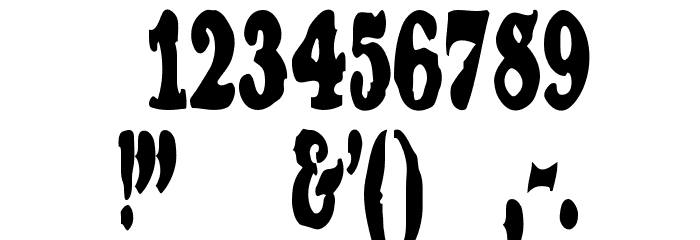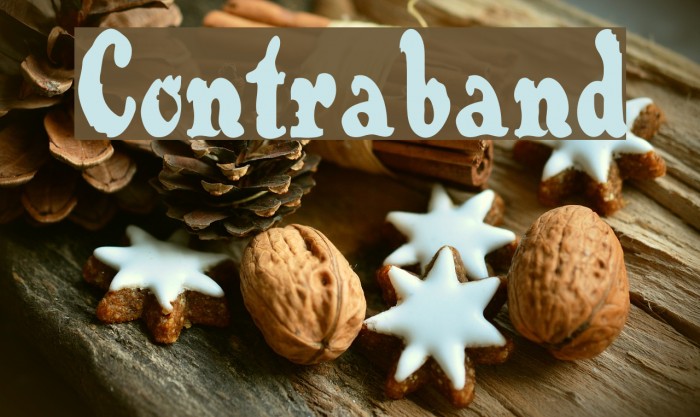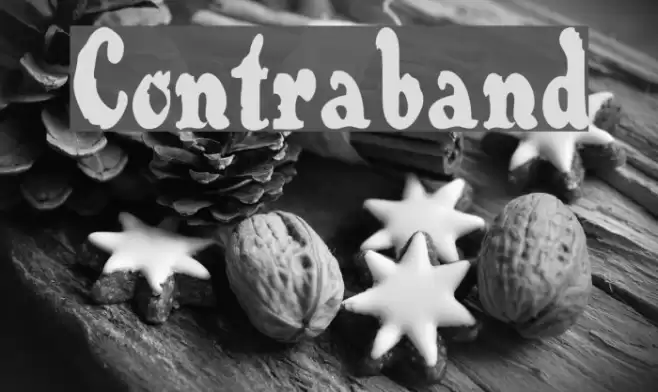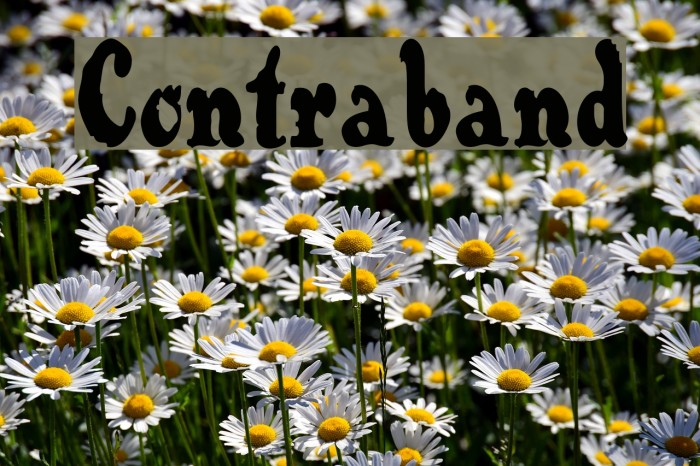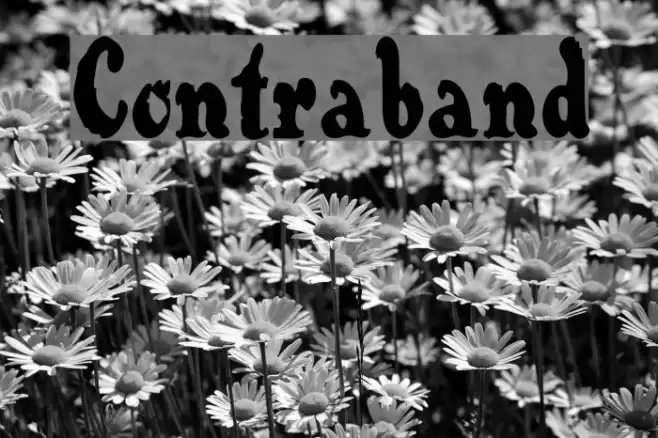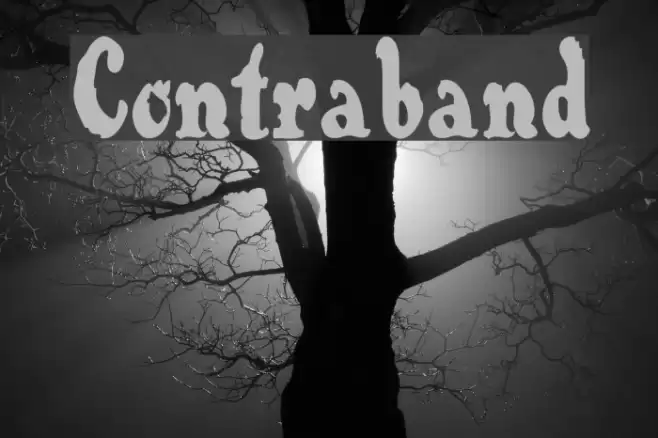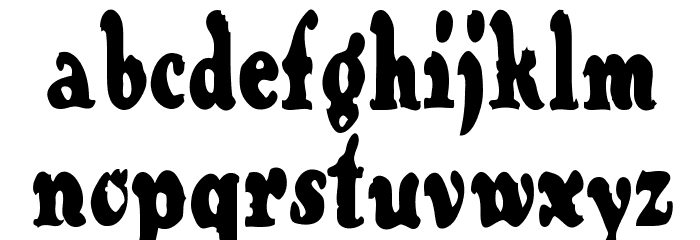
Contraband Font
Contraband Description
This font features a bold and rugged design with a distinctly vintage aesthetic. The characters are heavily stylized with uneven edges and a distressed texture, giving them a hand-crafted appearance. The uppercase letters are robust and commanding, while the lowercase letters maintain the same boldness with a slightly more playful touch. Numerals are consistent with the overall style, ensuring readability while maintaining the font's unique character. Special characters are creatively integrated, adding to the font's decorative appeal. This font is ideal for projects that require a strong, eye-catching typeface with a touch of nostalgia.
| Overall Style | Vintage |
| Proposed Projects | Ideal for posters, branding, packaging, and any design needing a vintage or rustic touch. |